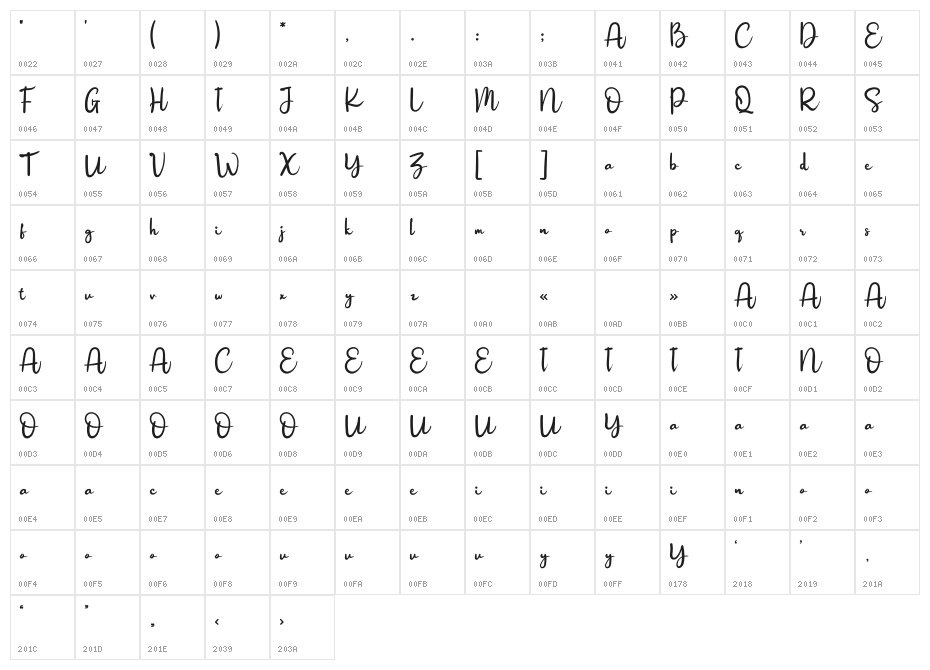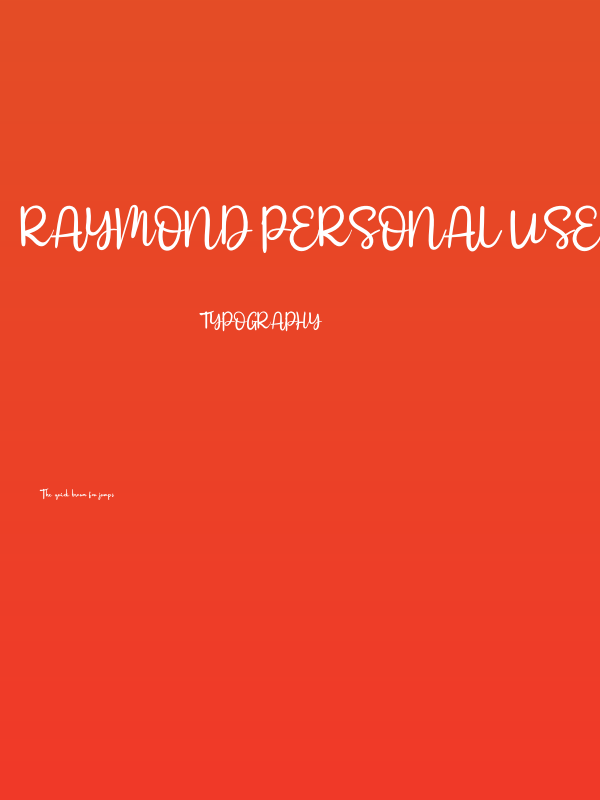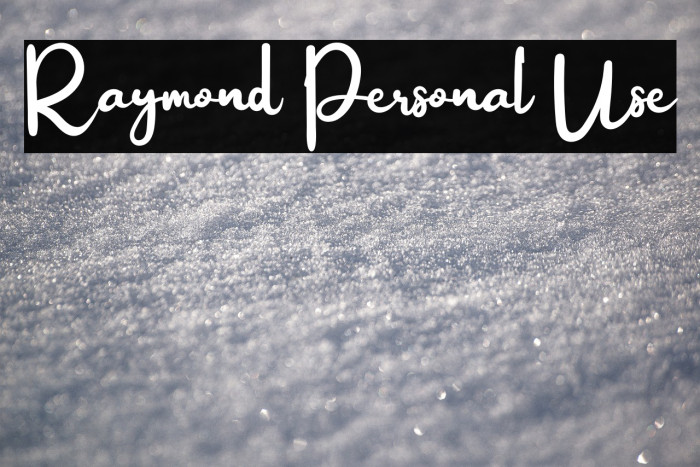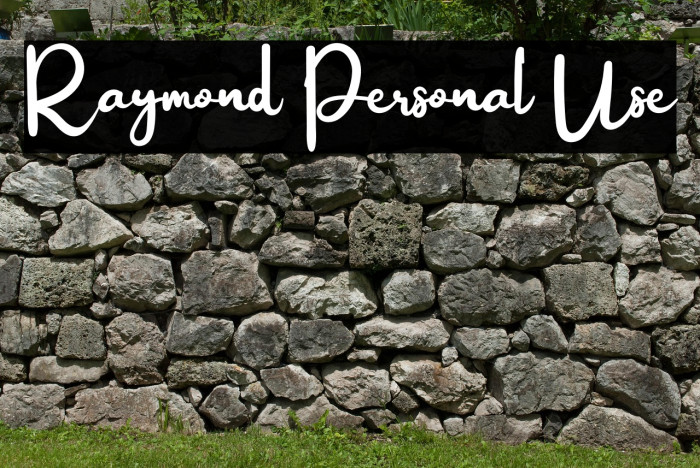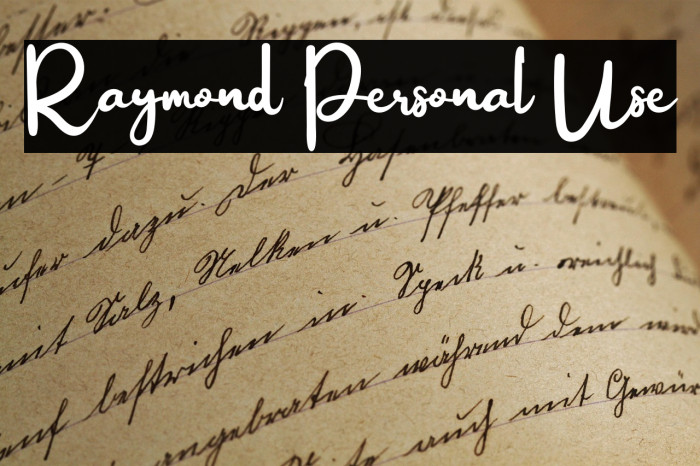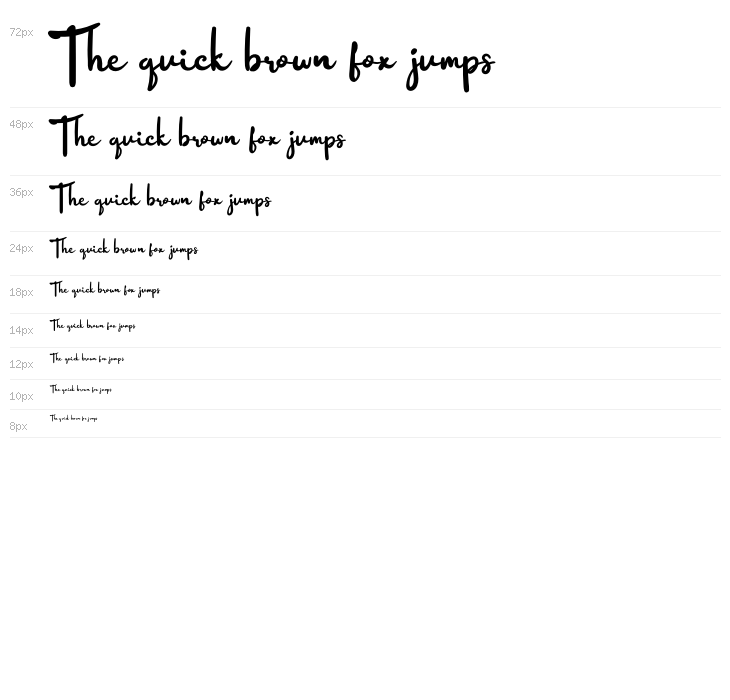
Raymond Personal Use Font
Raymond Personal Use Description
This font features a playful and flowing script style, characterized by its smooth, cursive strokes and elegant curves. The uppercase letters are bold and slightly exaggerated, giving them a distinctive and artistic flair. The lowercase letters maintain a consistent flow, with some letters connecting seamlessly, enhancing the handwritten feel. The font's overall appearance is both casual and sophisticated, making it versatile for various design needs. It includes a range of special characters, adding to its functionality and appeal for creative projects.
| Use Case | Logos, Invitations, Social Media Graphics |
| Proposed Projects | Ideal for wedding invitations, greeting cards, branding projects, and social media graphics. |